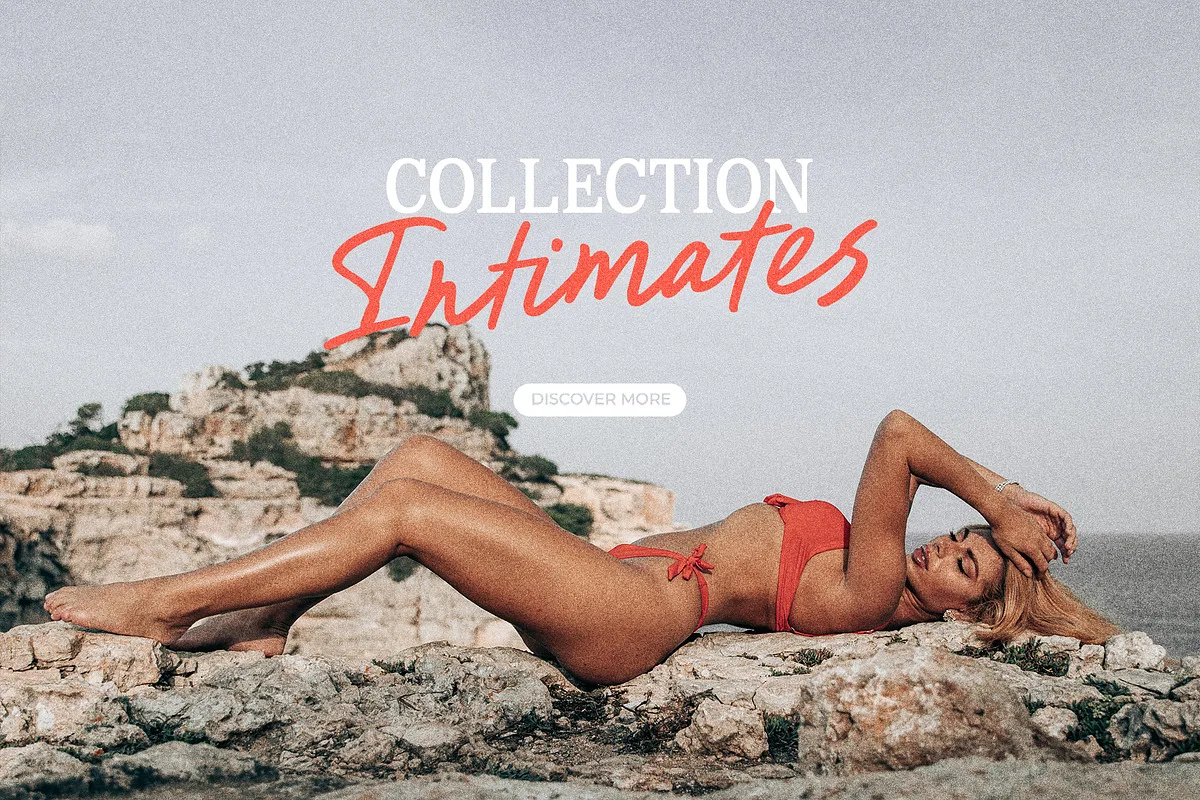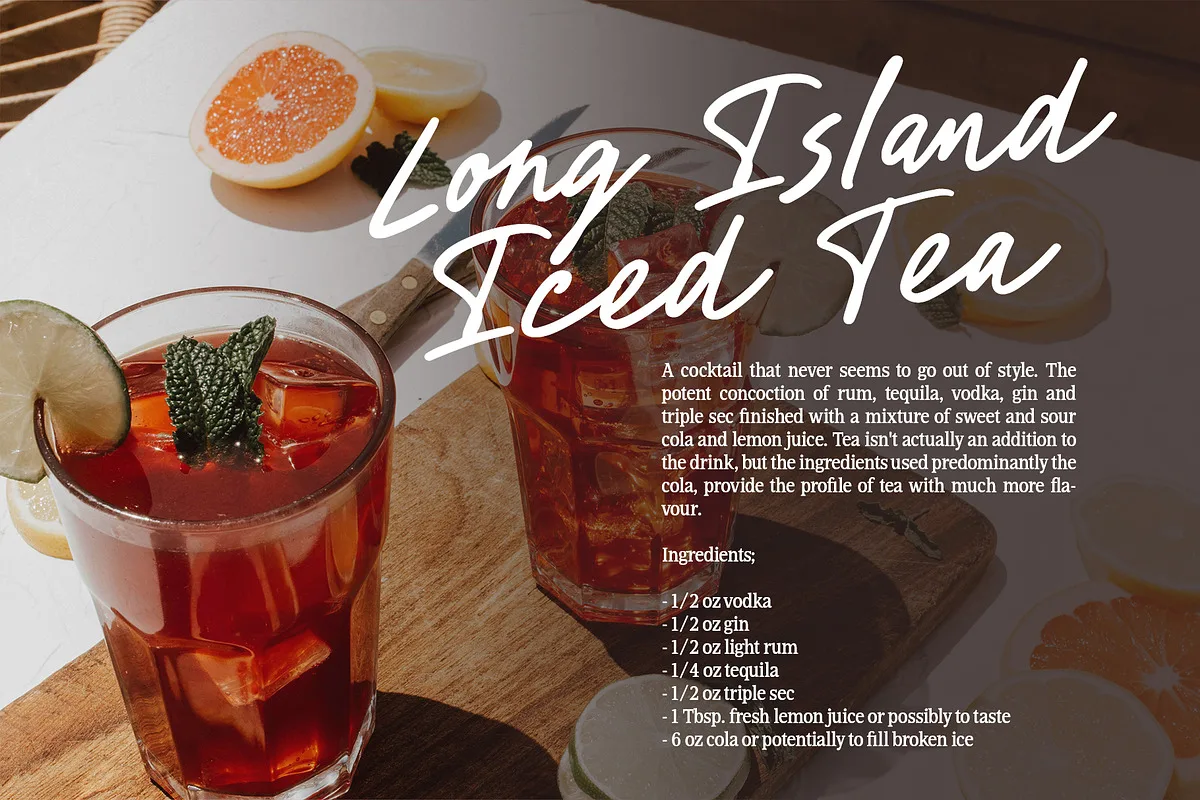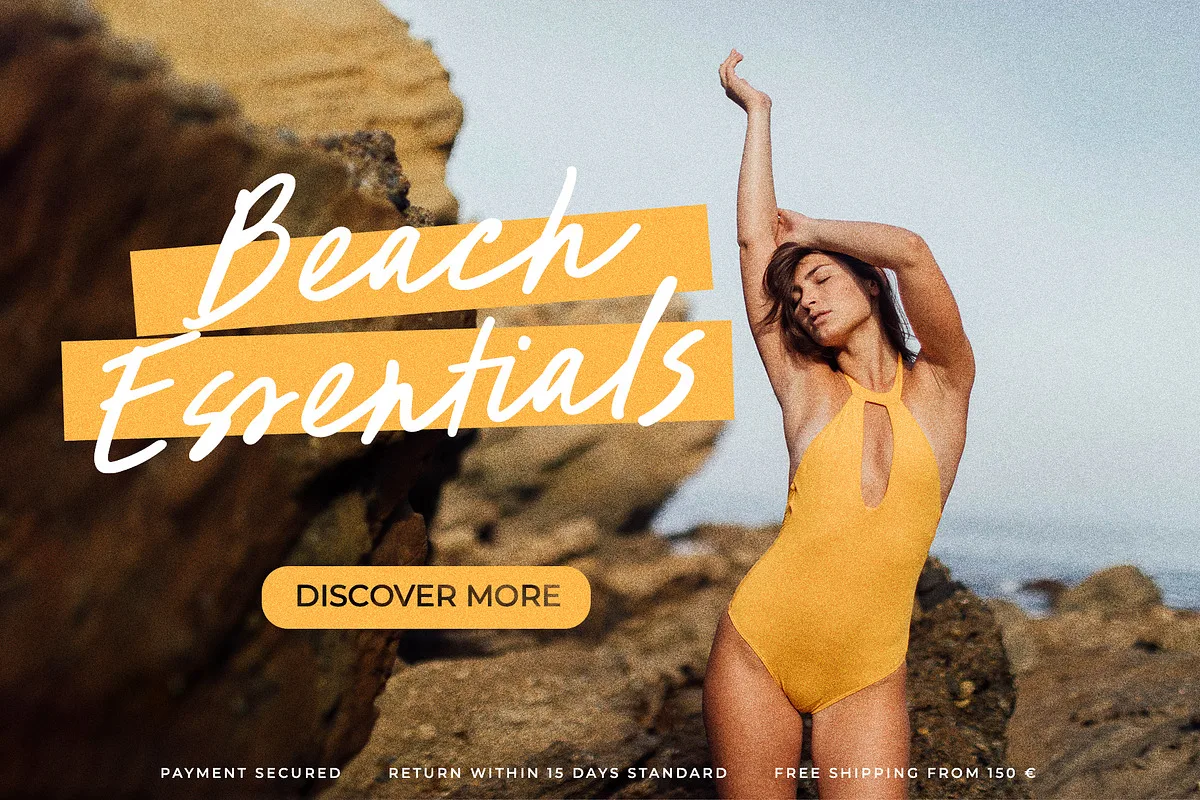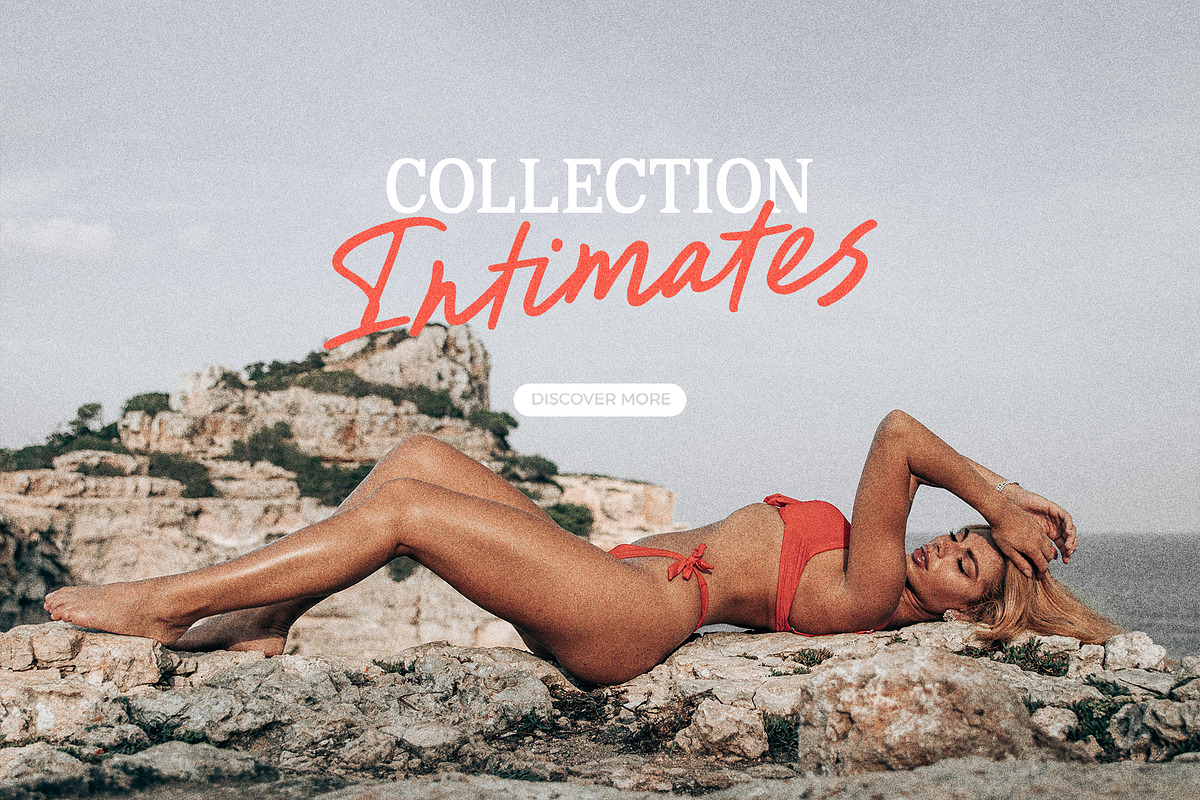
Des Montilles is a casual handwritten font. Perfect for greeting cards, wedding stationery, photographer watermarks logos, modern websites, apparel design and more. Des Montilles features handwritten ligatures, beginning and end swashes for lowercase letters and heart connections
- Full Set of standard alphabet and punctuation
- Handwritten ligatures
- Multilingual Characters
Des Montilles Handwritten Script Font